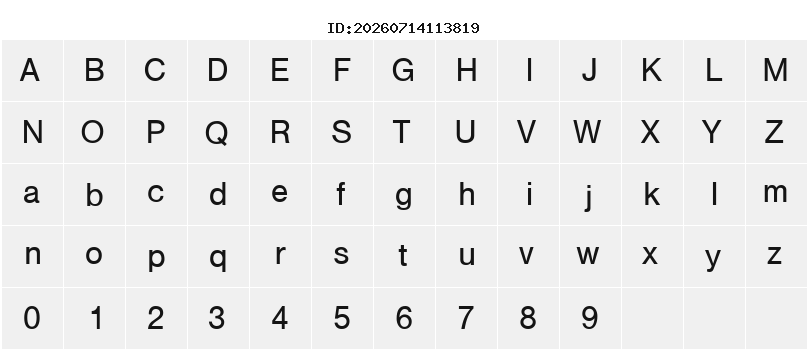
HelbaDB.ttf is a modern, elegant sans-serif font designed for ultimate readability and visual harmony. Perfect for branding, headlines, web design, and print materials.